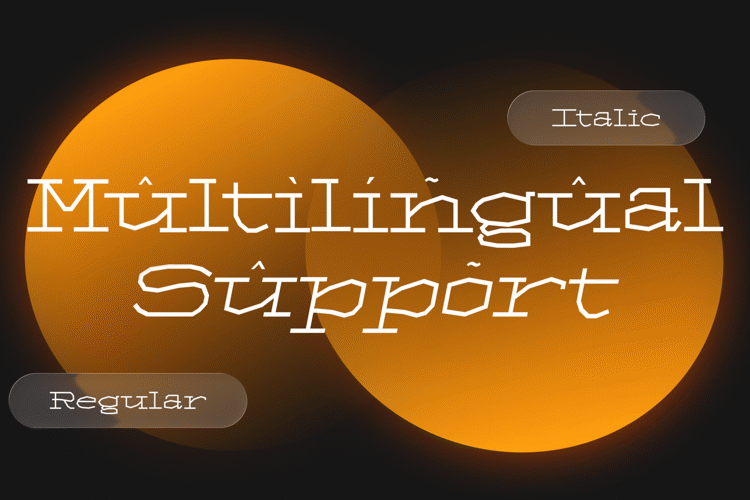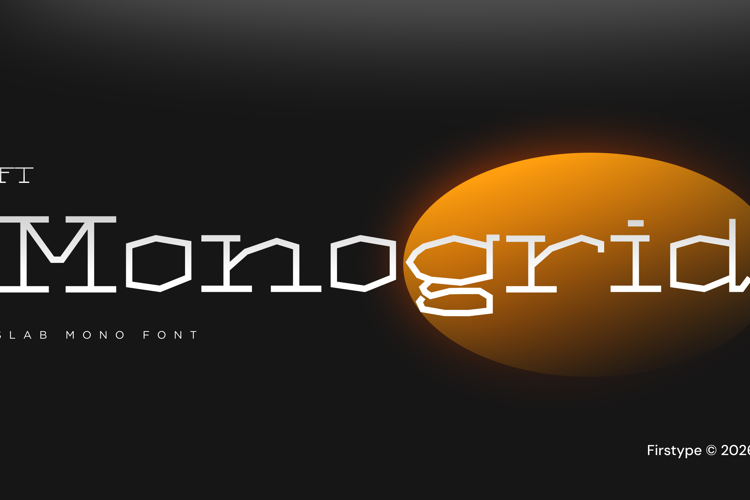
FT Monogrid Font - Futuristic Geometric Display Typeface
Bring structural perfection to your designs with FT Monogrid.
FT Monogrid is a modern display font characterized by its clean, modular geometry and futuristic aesthetic. Built on a strict grid system, this typeface delivers a sharp and highly legible look, perfect for headlines, logos, and industrial-style graphic design.